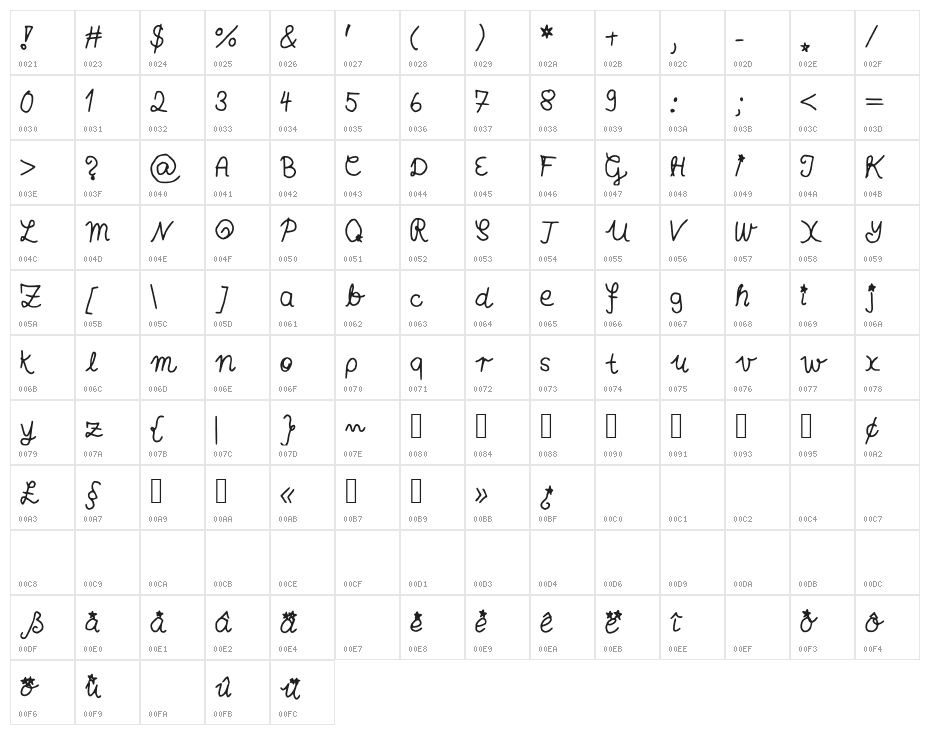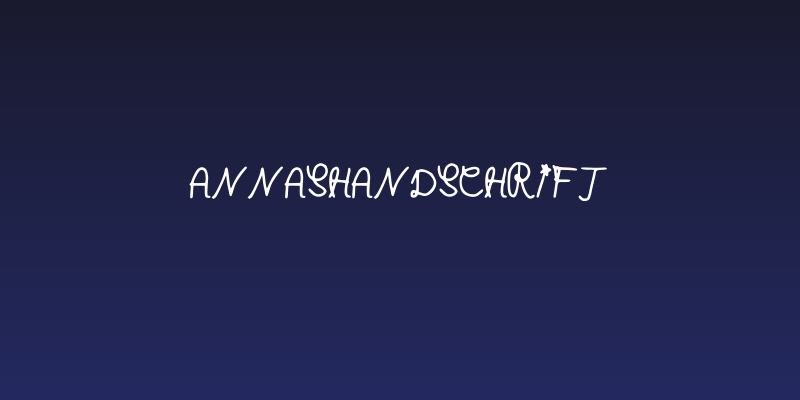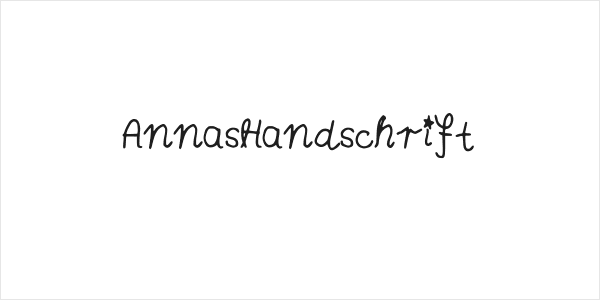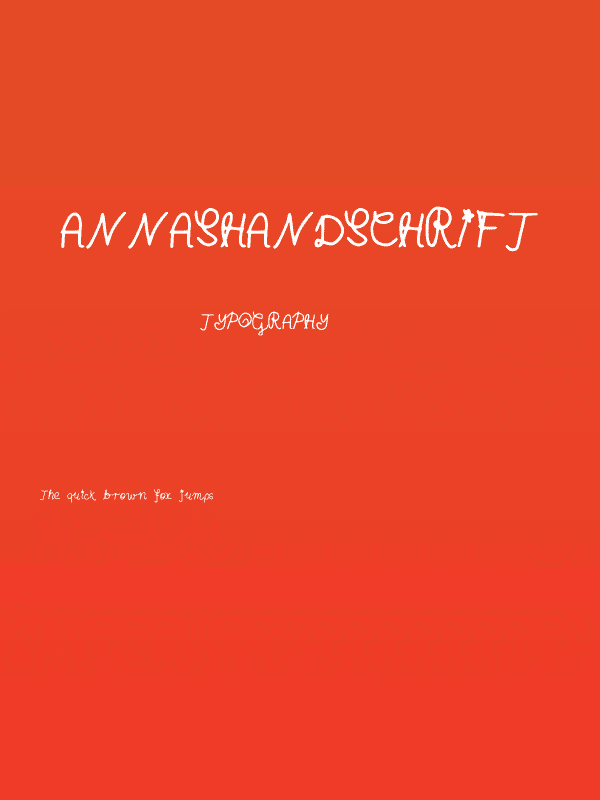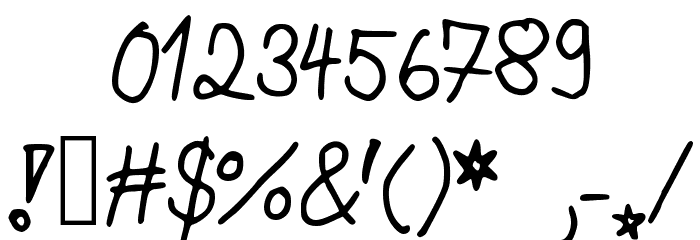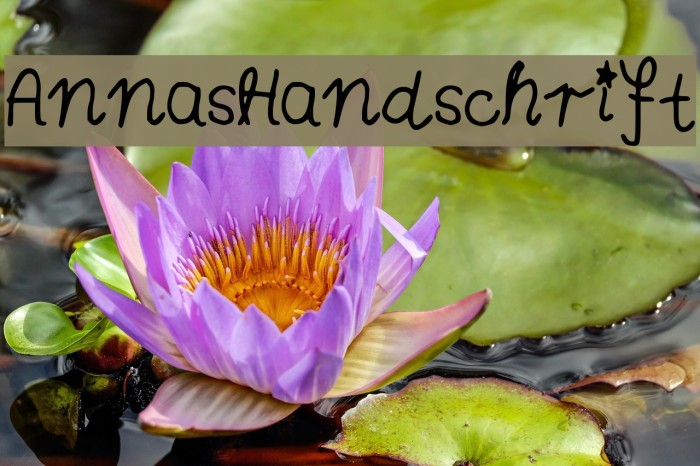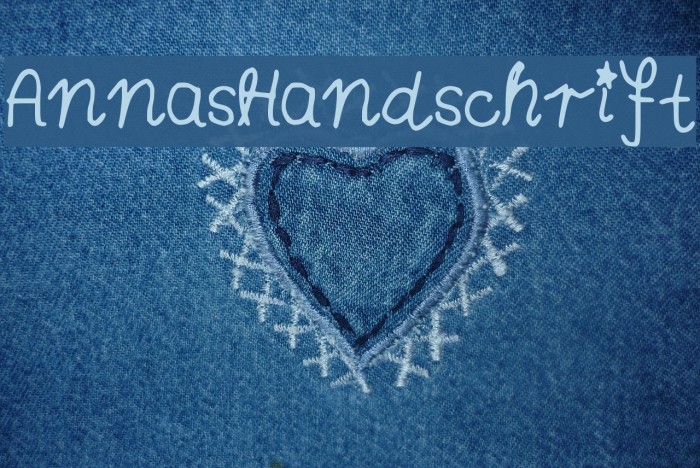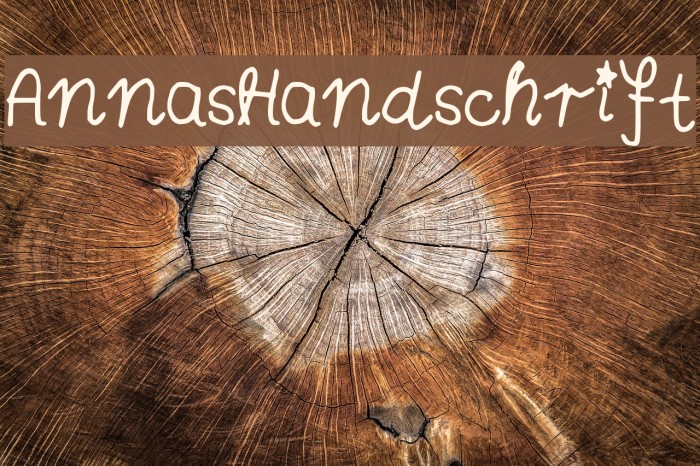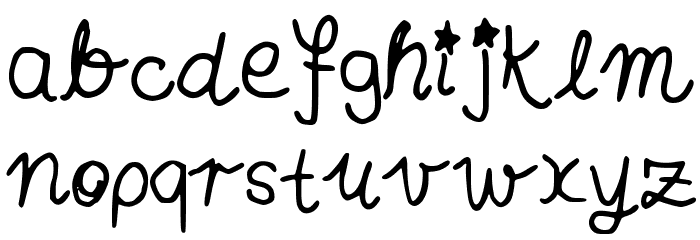
AnnasHandschrift Font
This font exudes a playful and whimsical charm, characterized by its handwritten style with a touch of elegance. The letters are crafted with a smooth, flowing script that mimics natural handwriting, featuring slight variations in stroke thickness that add to its authenticity. The uppercase letters are bold and prominent, while the lowercase letters maintain a consistent flow, enhancing readability. Special characters are creatively integrated, with some incorporating unique decorative elements like stars. This font captures a sense of personal touch and creativity, making it ideal for projects that require a friendly and approachable aesthetic.
| Overall Style | Whimsical |
| Proposed Projects | Ideal for greeting cards, personal invitations, children's books, and creative branding projects. |